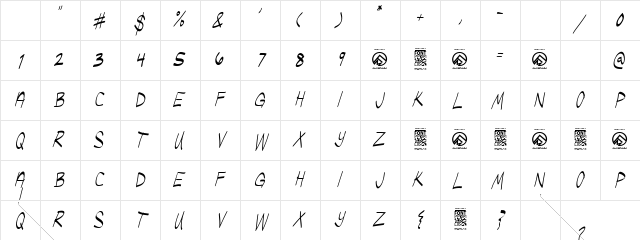
Ugly Kids Thin Thin Italic Free Font
Ugly Kids Thin Thin Italic
Style: Thin Italic
Foundry: Font Monger
Designer: Font Monger
Design Context for Ugly Kids Thin
Ugly Kids Thin has an approachable, lighthearted character - its loose, expressive forms are well-suited to children's content, casual branding, and fun-first design. The slanted form adds forward momentum and visual energy.
Font Pairing: Pairs well with a rounded or humanist sans for body copy, maintaining the friendly tone without relying on Ugly Kids Thin to carry extended reading.
Pro Tip: Use Ugly Kids Thin at larger display sizes where its expressive character can land. Pair with a clean, simple sans for body copy to maintain readability.